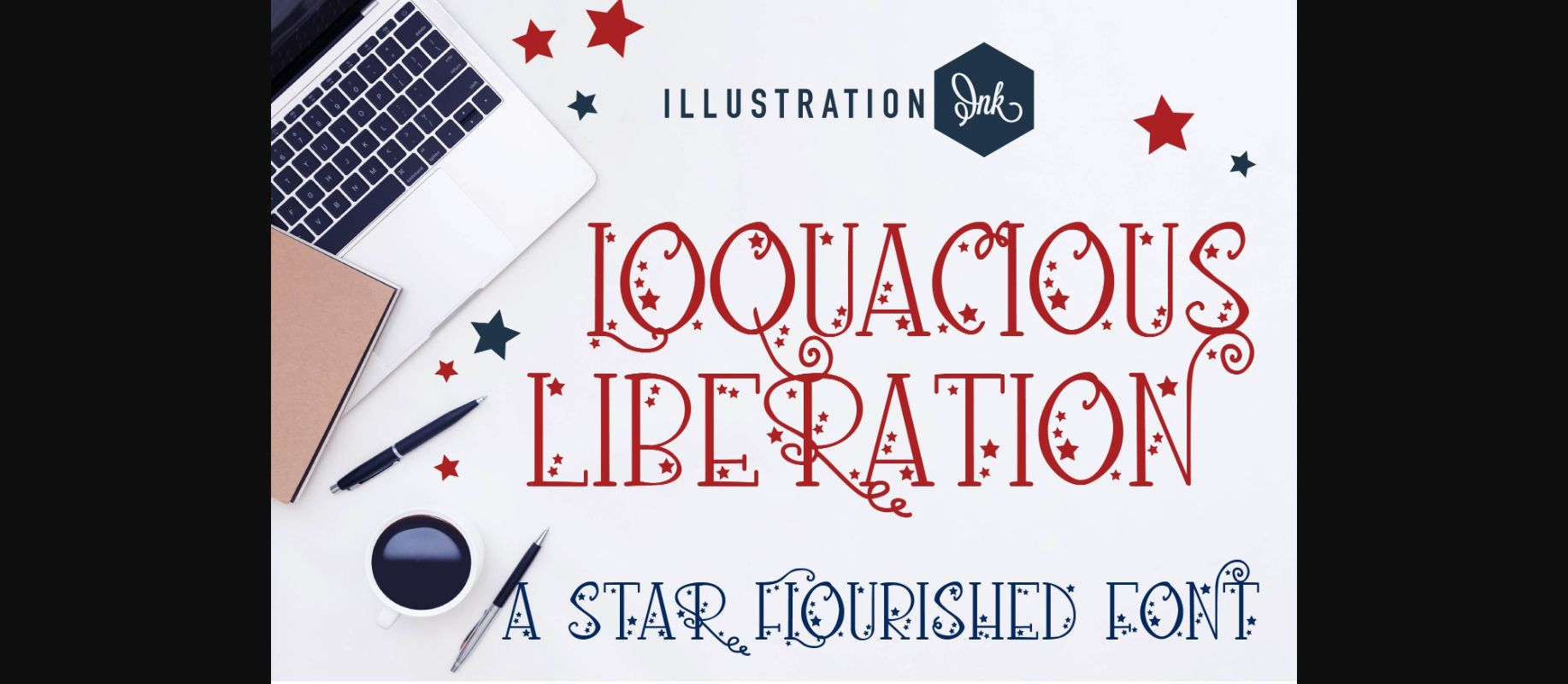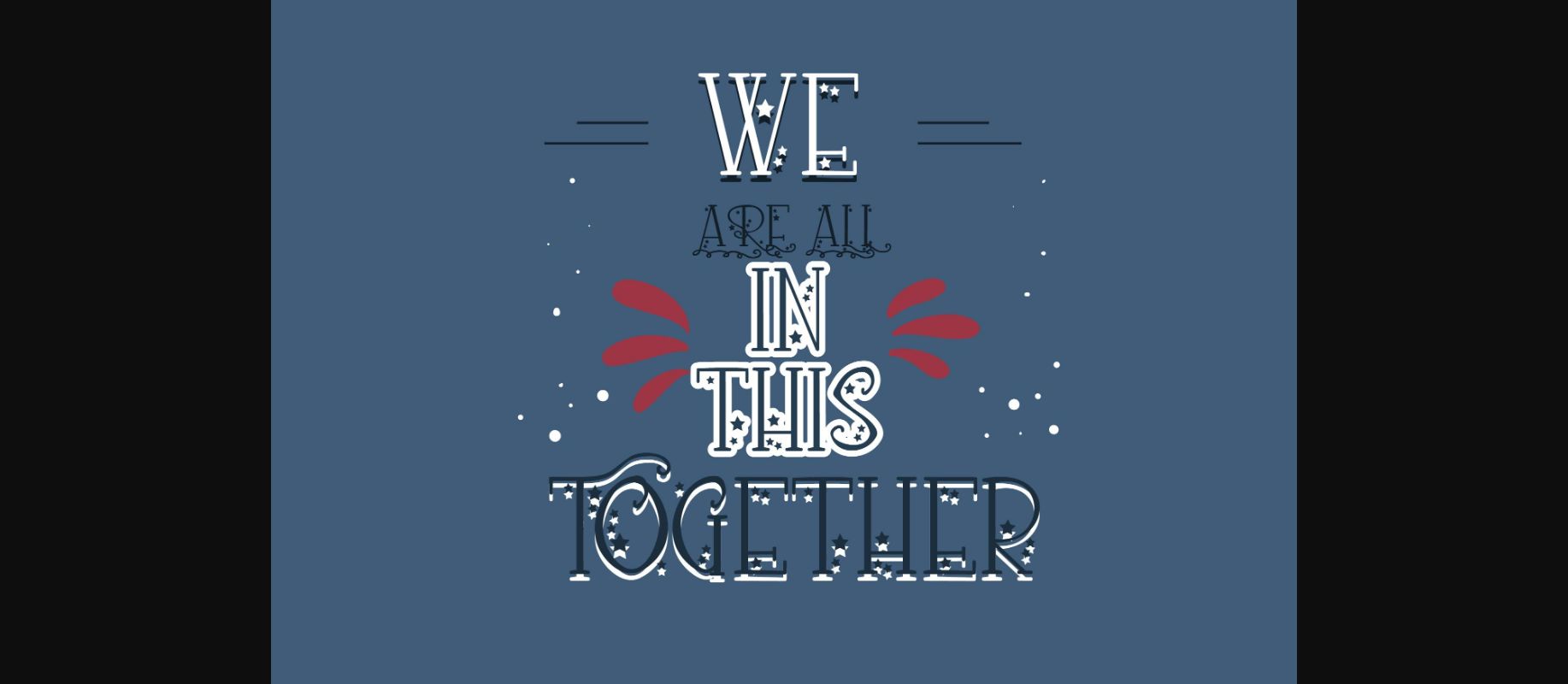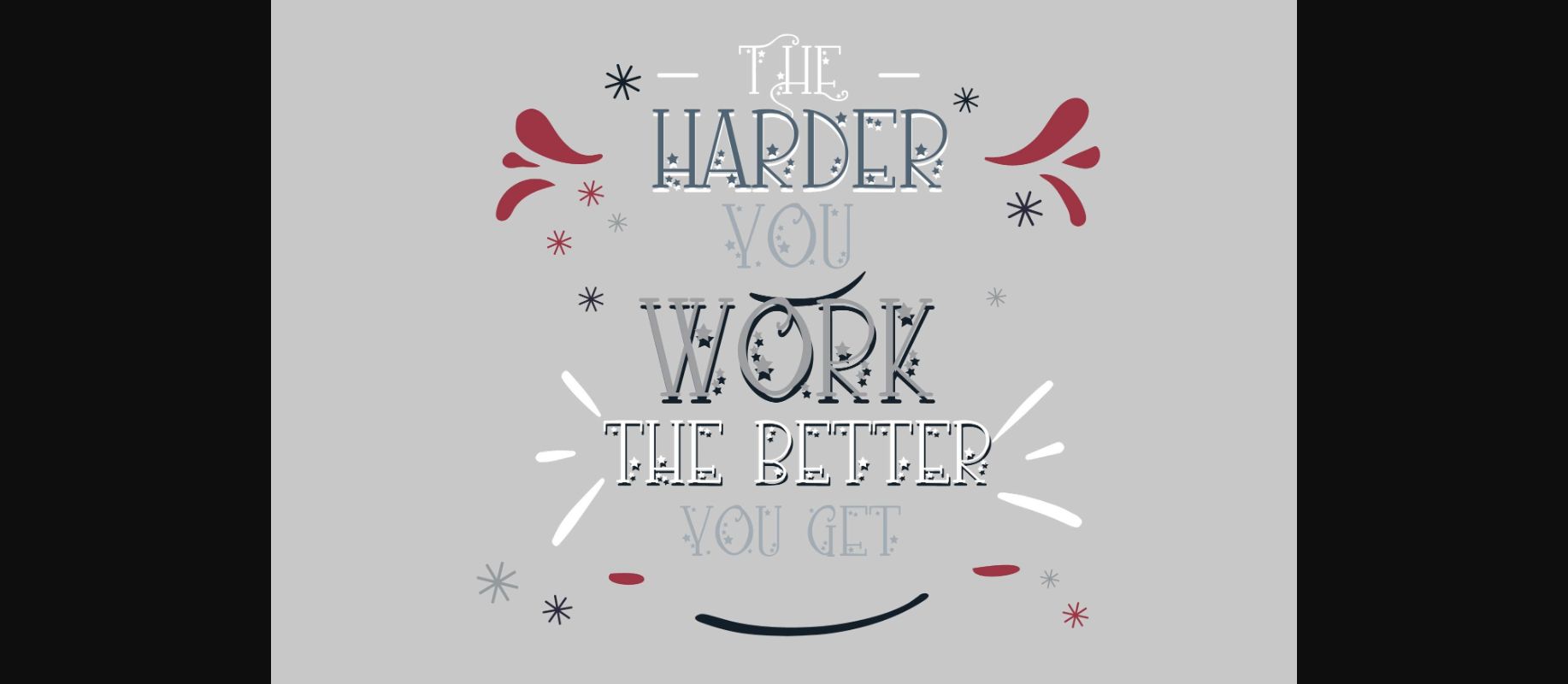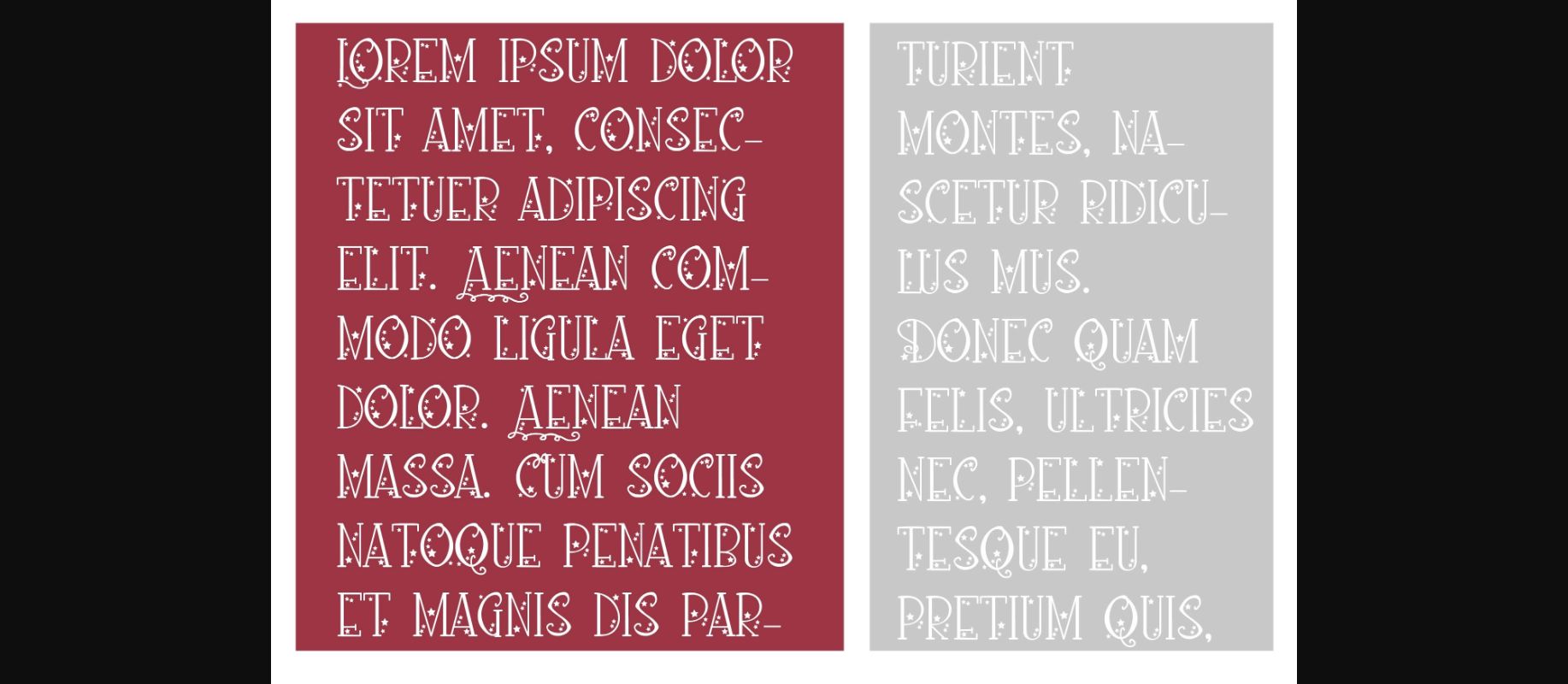
About Loquacious Liberation Font
This hand-written serif font has lots of flourishes with stars. With this font, your messages will become really super cute. This font is perfect for posters, greeting cards, t-shirts, branding materials, quotes, and any other amazing projects you are working on